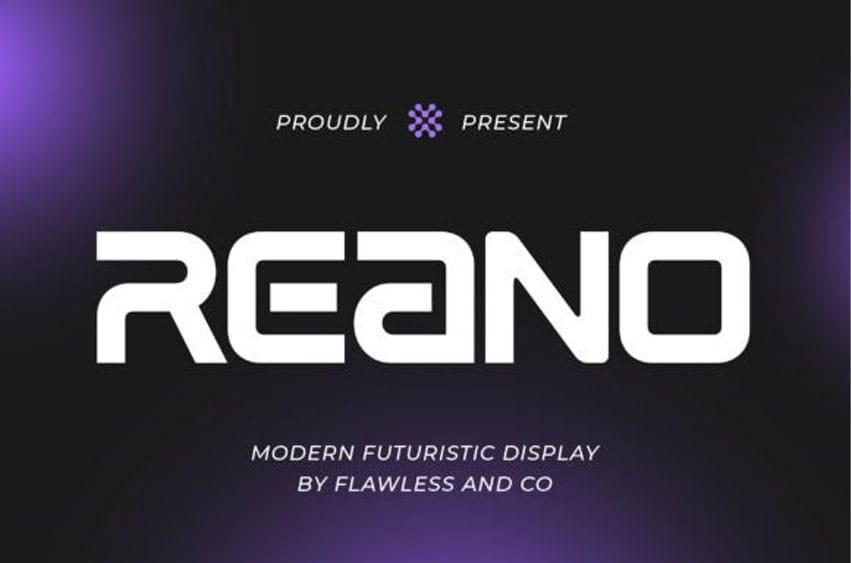
Reano Font is a bold modern futuristic display typeface designed to bring a bold, cutting-edge look to your creative projects. With its clean geometric structure, sharp letterforms, and innovative style, Reano captures the essence of modern technology and forward-thinking design. Its strong visual presence makes it perfect for headlines, branding, and display purposes where a contemporary and futuristic impression is essential.
Whether you’re creating digital branding, gaming visuals, or modern promotional materials, Reano delivers a powerful and futuristic aesthetic.